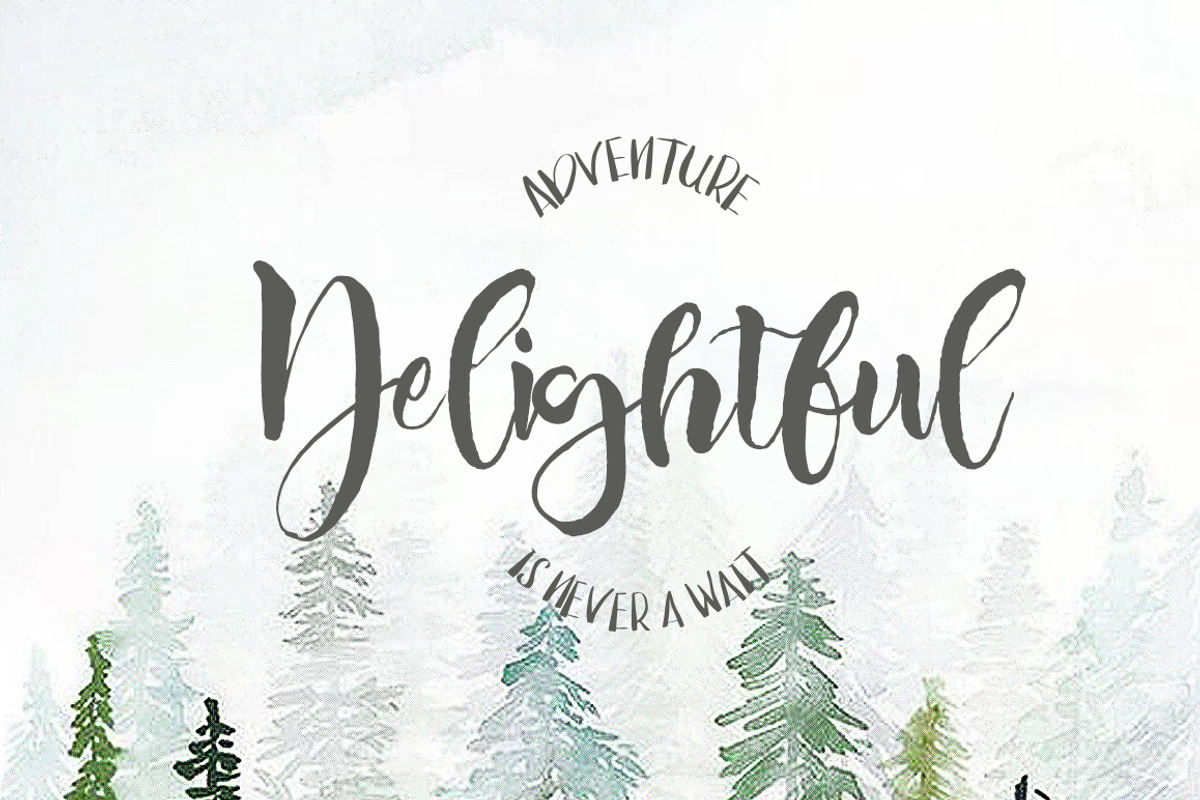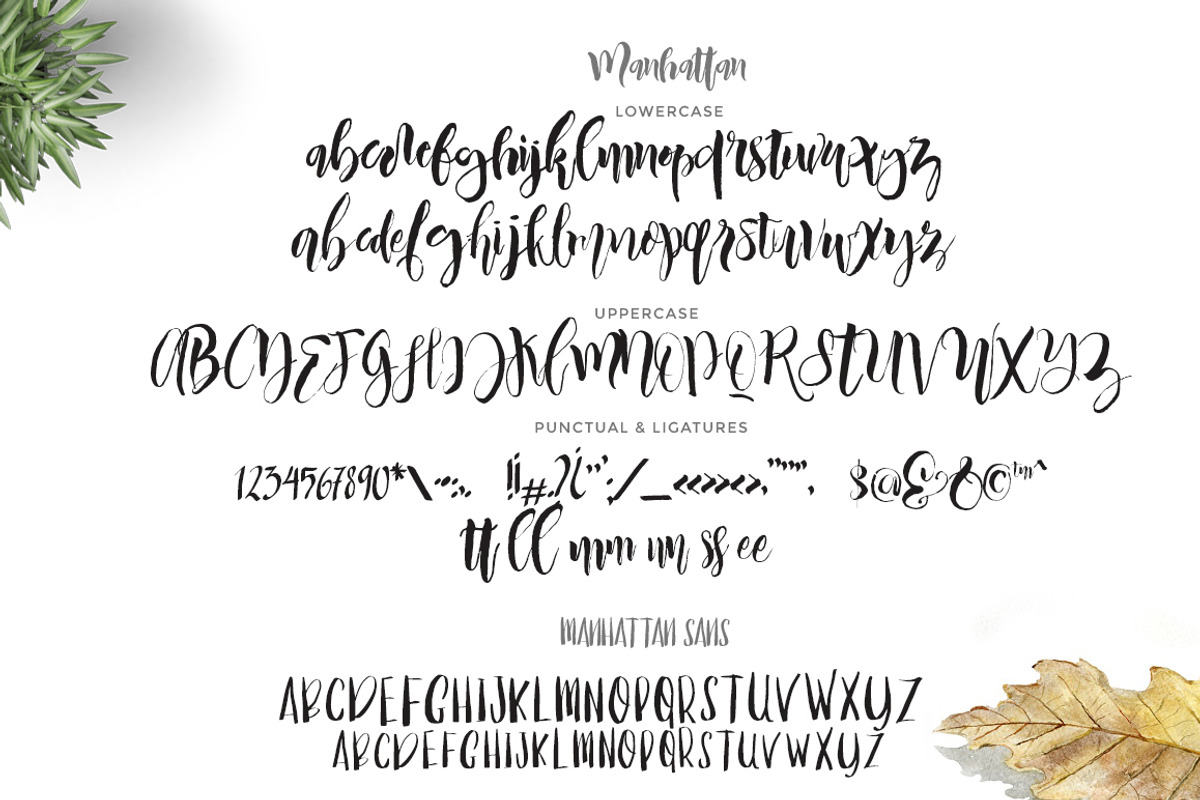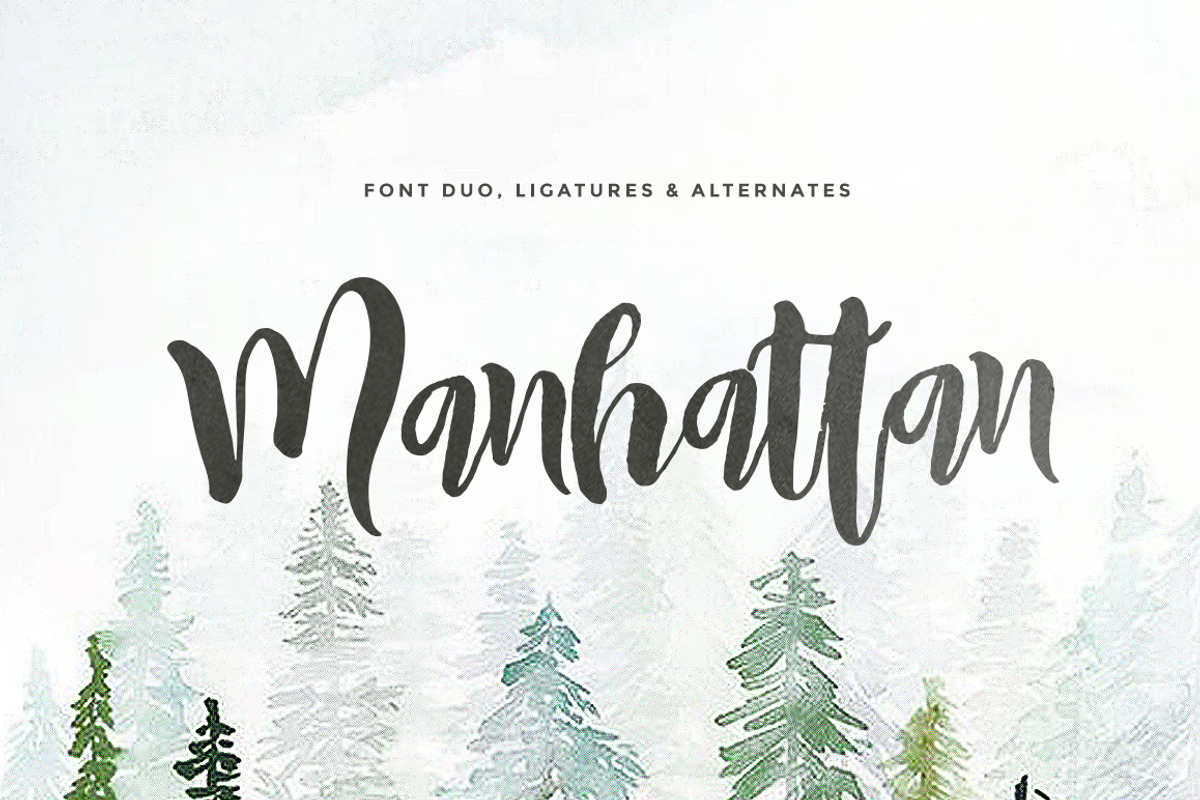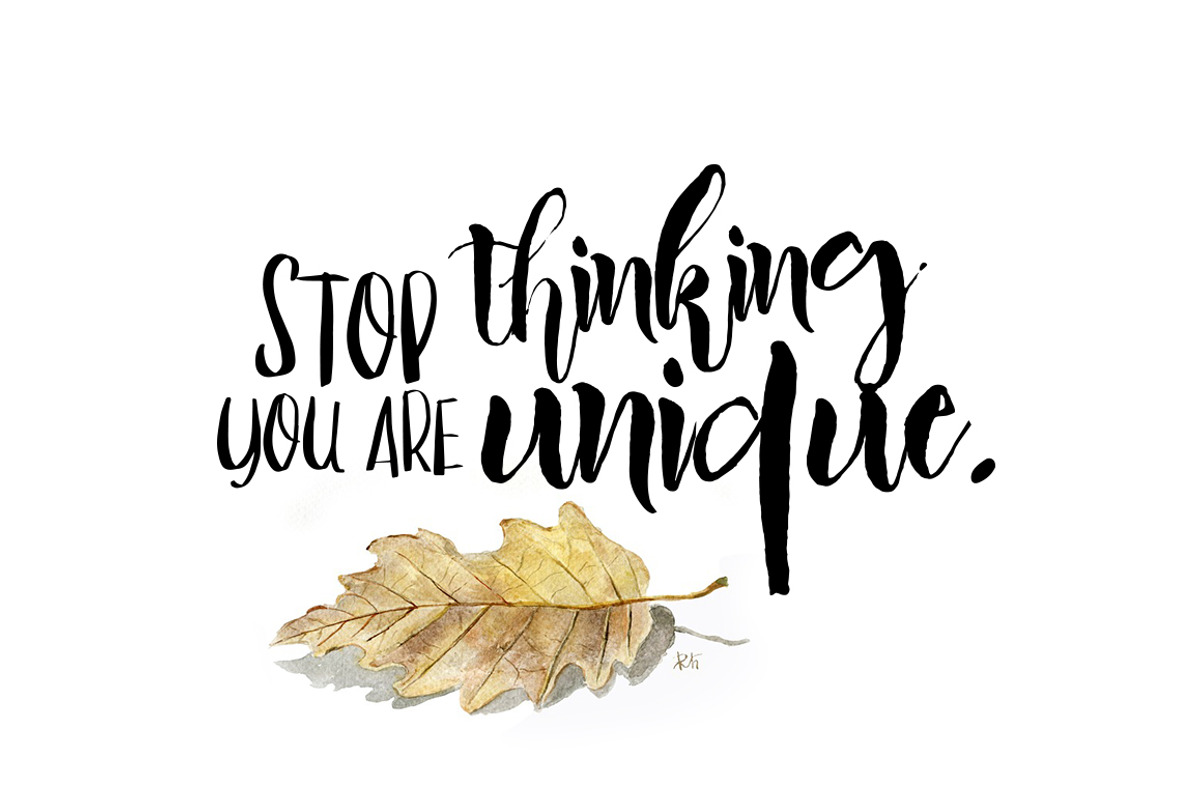
Manhattan Script (2 fonts)
Manhattan Script (2 fonts) by Fortunes Co is a font selected for branding, posters, packaging, typography.
- Manhattan Main files which is 2 fonts Manhattan script • A hand Drawn script font containing upper & lowercase character, numeral and punctu
Why Manhattan Script (2 fonts) is worth a look
Manhattan Script (2 fonts) by Fortunes Co fits naturally into Branding, posters, packaging, typography.